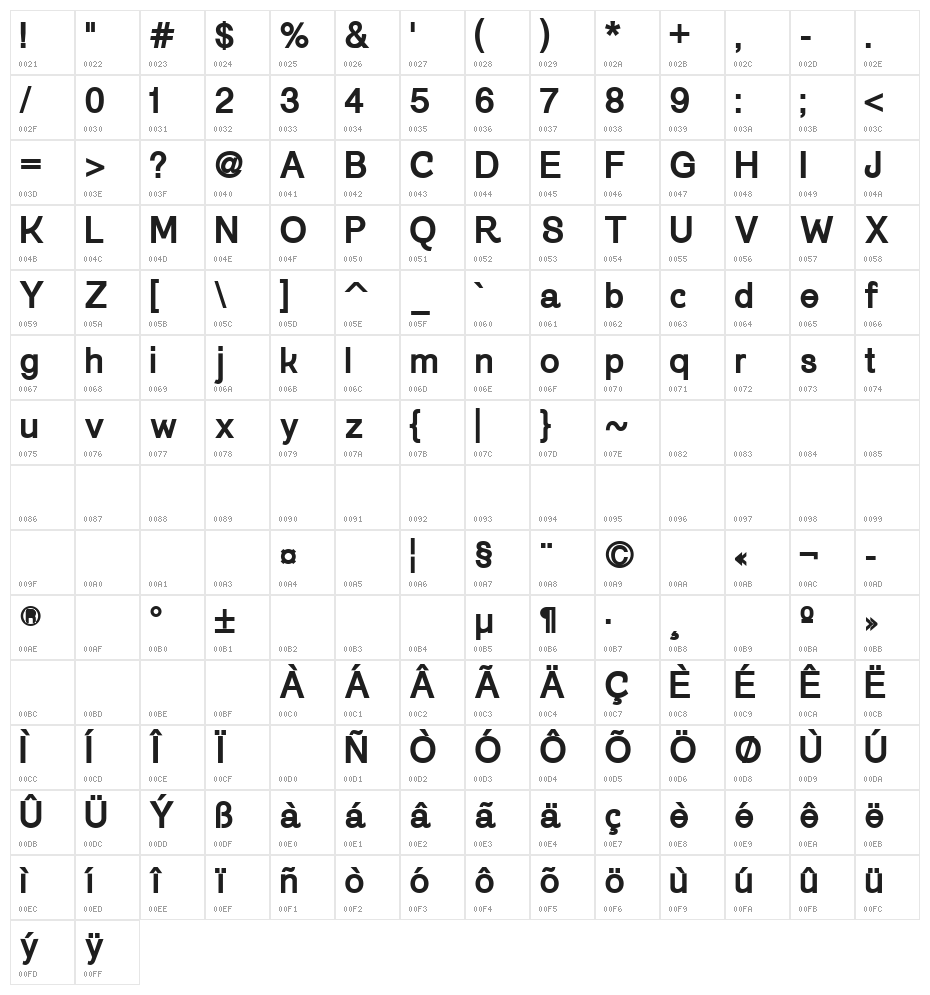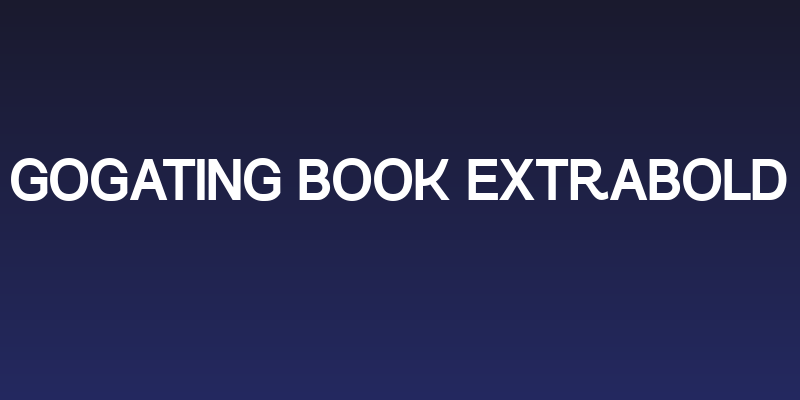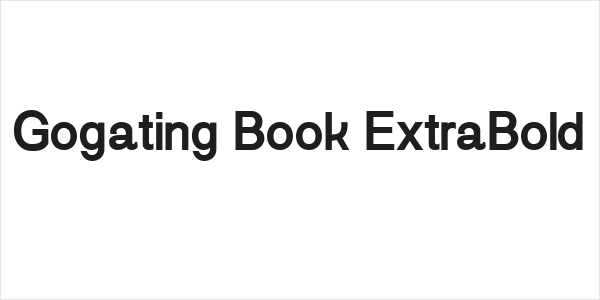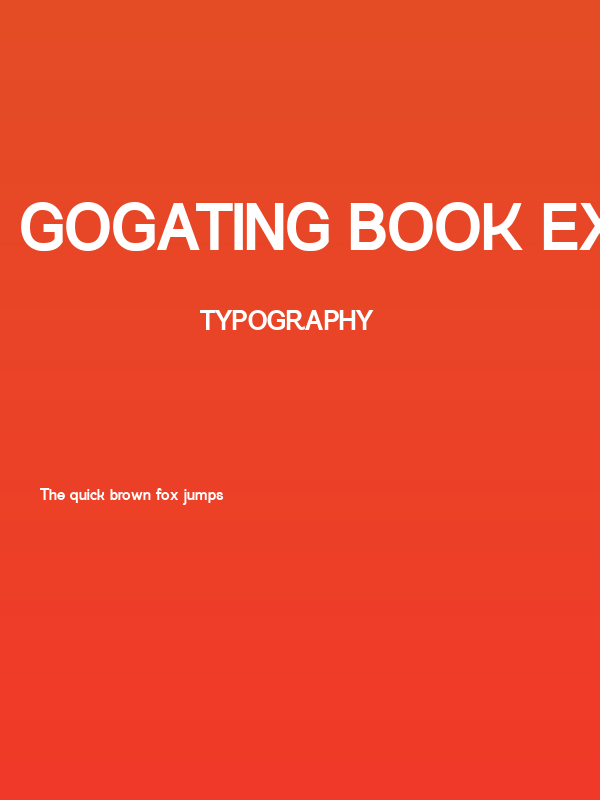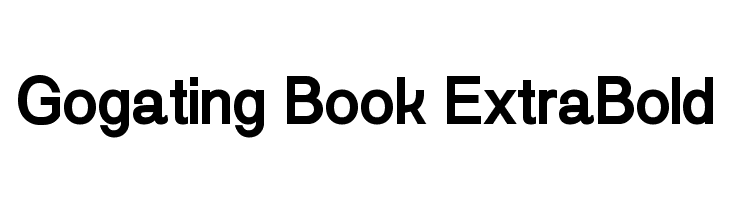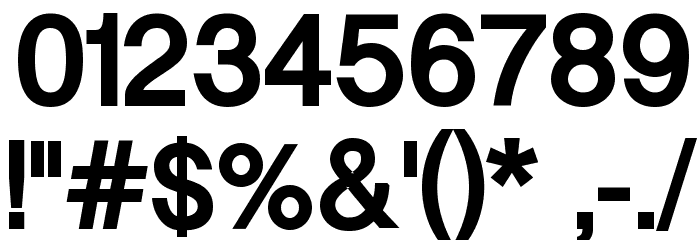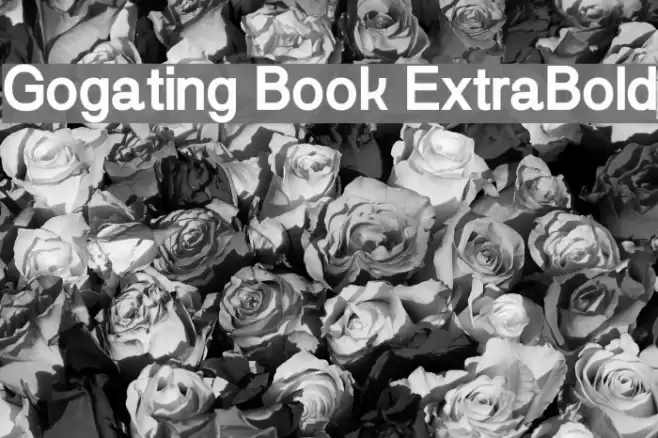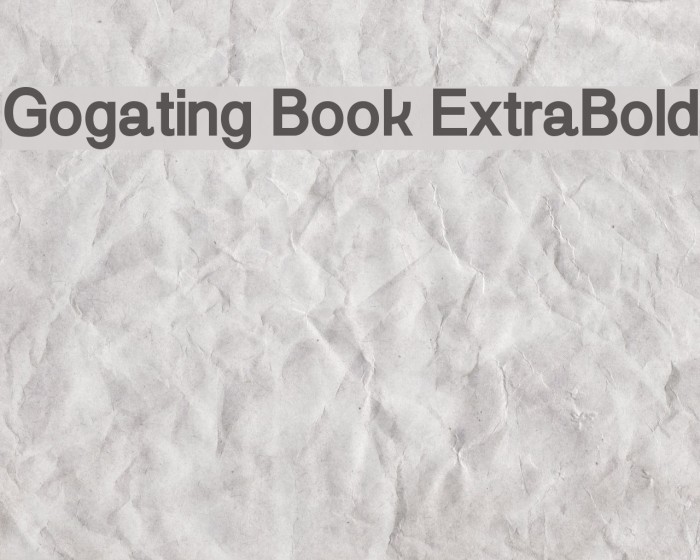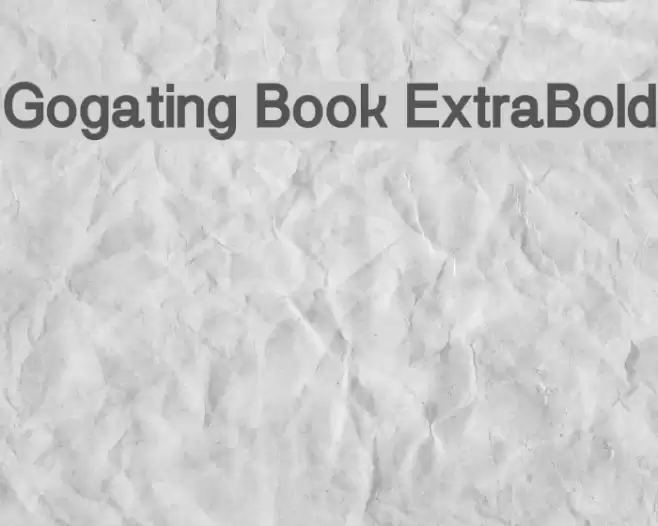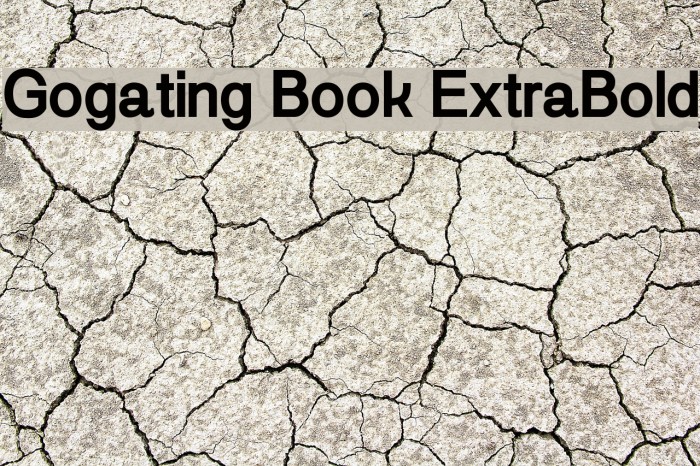
Gogating Book ExtraBold Font
Gogating Book ExtraBold Description
This font exhibits a bold and modern sans-serif style, characterized by clean lines and a strong presence. The uppercase and lowercase letters are well-balanced, with consistent stroke widths that provide a uniform appearance. The numerals are clear and legible, making them suitable for various applications. Special characters are included, maintaining the font's cohesive look. The overall design is straightforward, with no unnecessary embellishments, emphasizing functionality and readability.
| Use Case | Headlines, Logos, Digital content |
| Proposed Projects | Ideal for branding, advertising, headlines, and digital content where clarity and impact are essential. |